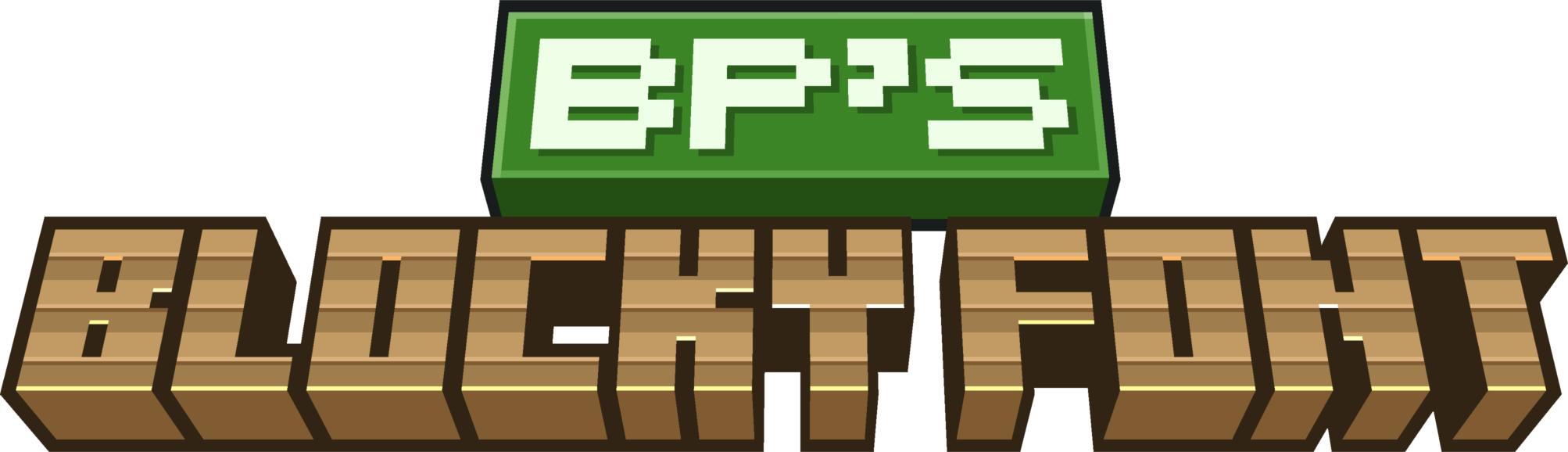
I made this pack to change the default minecraft font to something a bit more.. well, blockier. In my opinion, it makes the font blend in better with Minecraft's style for due to this game's very blocky nature.
This pack changes all letters, numbers and symbols. It (partly) supports accents/diacritics but not completely. Hopefully I will deal with that in the future - fingers crossed future me even remembers this pack.